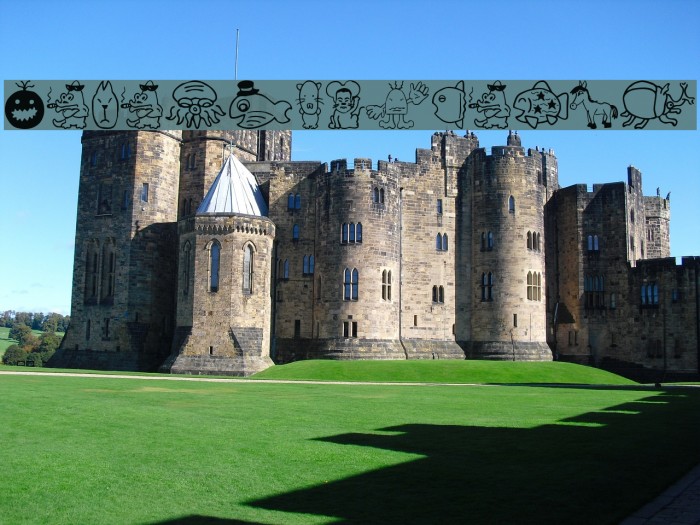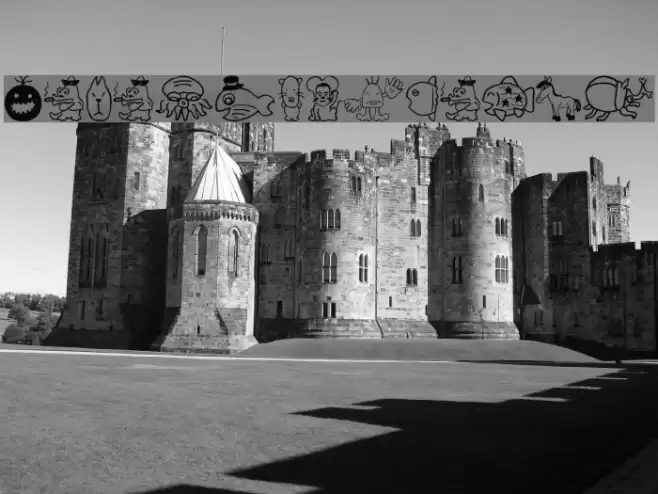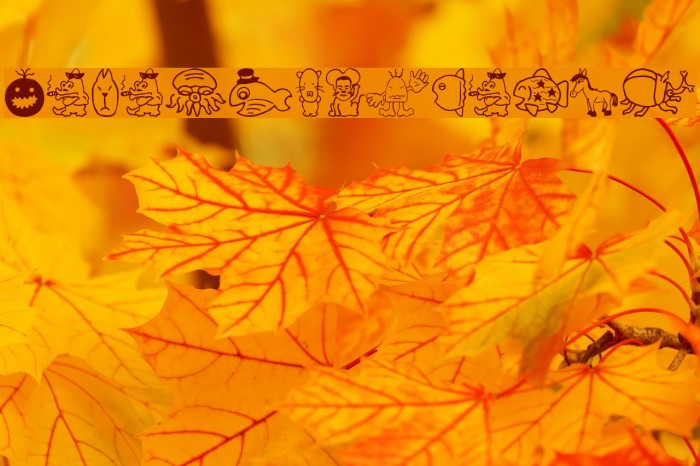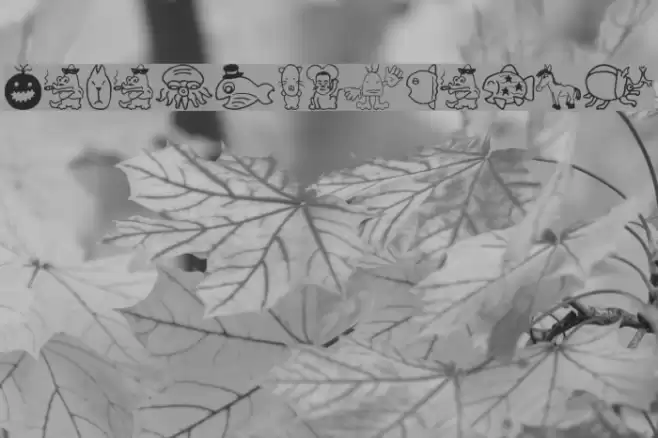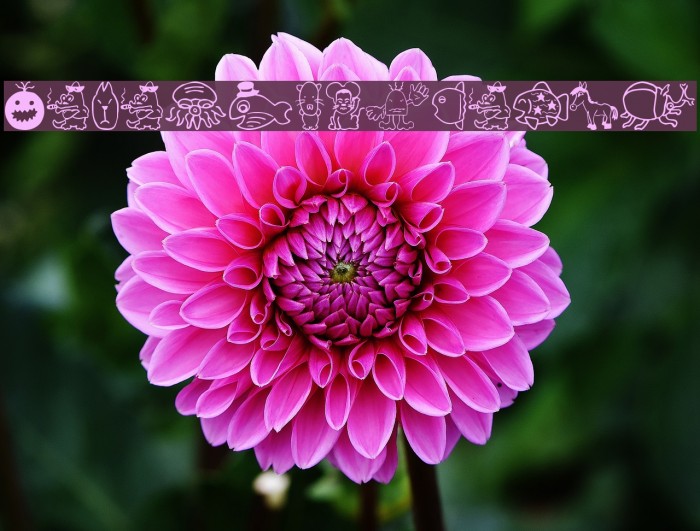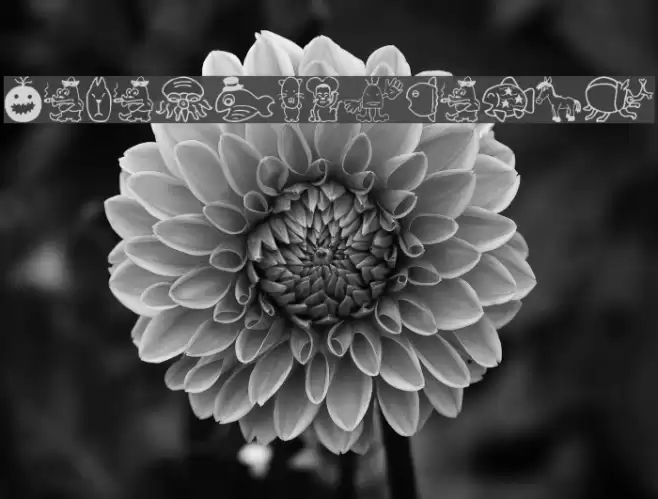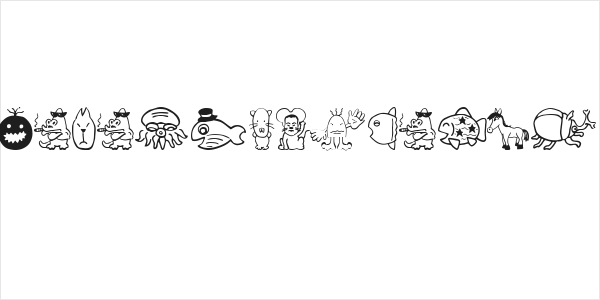
SakabeAnimal02 Font
SakabeAnimal02 Description
This font is a whimsical and playful collection of animal and creature illustrations. Each character is represented by a unique, cartoon-like drawing, ranging from cute and friendly animals to quirky and imaginative creatures. The style is hand-drawn, with a focus on bold outlines and simple, expressive features. The characters are designed to be engaging and fun, making them suitable for creative projects that require a touch of humor and personality. The overall aesthetic is lighthearted and imaginative, appealing to both children and adults who enjoy playful designs.
| Use Case | Logos, Art projects, Children's materials |
| Proposed Projects | Ideal for children's books, educational materials, playful branding, and creative art projects. |